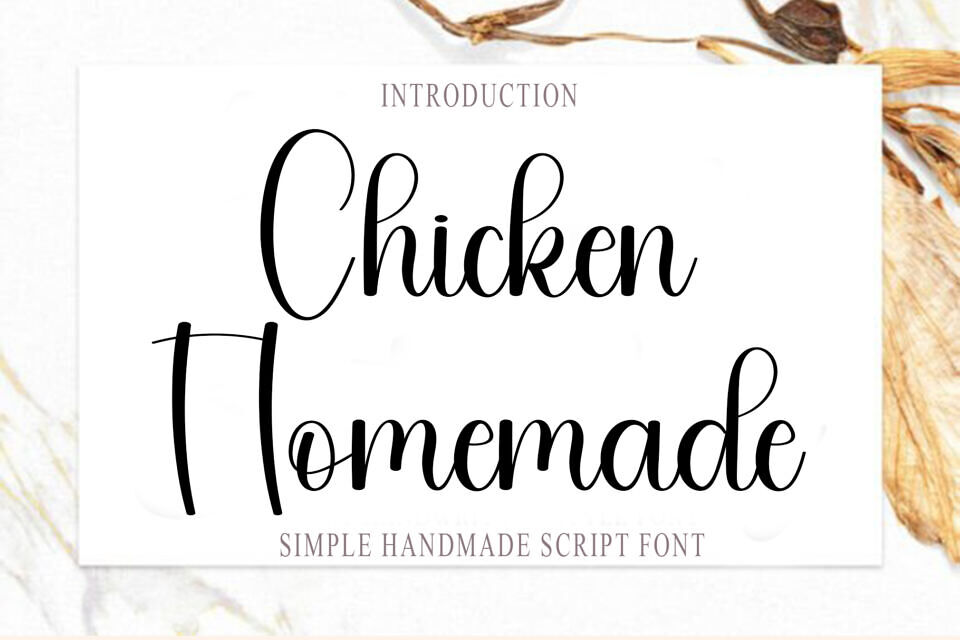
Chicken Handmade is a charming handwritten font with a natural, flowing style that brings warmth and personality to any design. Its smooth strokes and casual appearance make it perfect for logos, product packaging, greeting cards, invitations, social media graphics, and branding projects.
Whether you’re creating rustic, homemade, or creative-themed designs, this font delivers an authentic handcrafted touch with excellent readability and visual appeal.